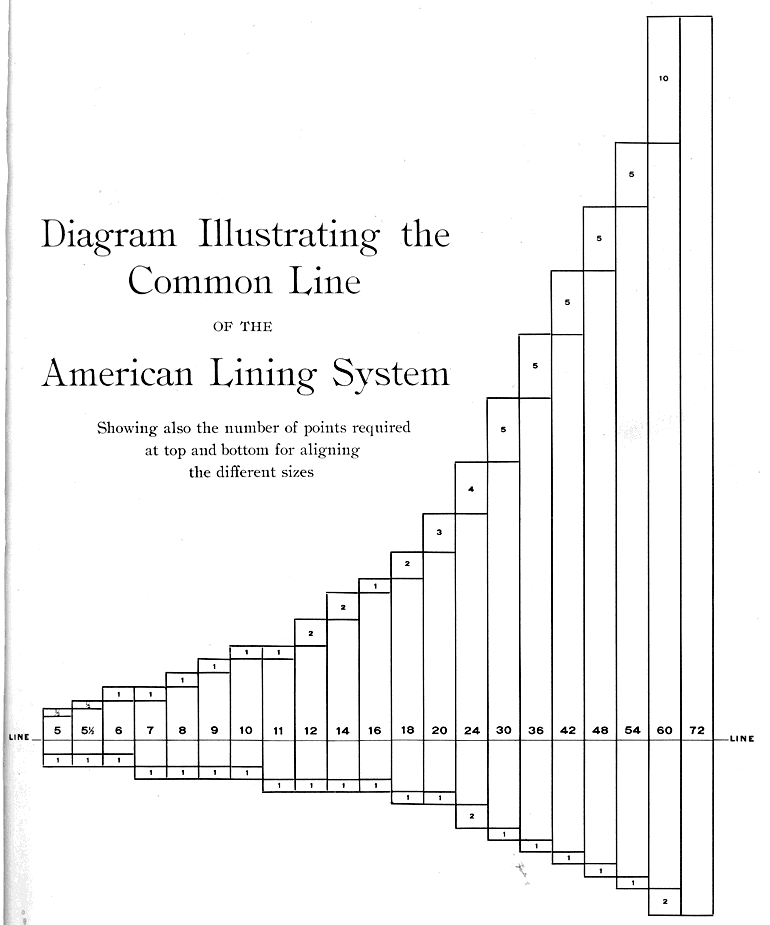
Legally, any design patents are long ago expired (ATF had a lot of these, and many can be seen in the ATF archive at Columbia).
In the USA, I understand there is no copyright on abstract typeface designs per se. But even if there were, the copyrights on much of the ATF stuff would have expired years ago. All works created prior to 1923 are in the public domain. Additionally, for works published between 1923 and 1963, the copyright owner would have to have filed an extension with the copyright office, else they would have expired by now. (Most of this info is taken from: http://www.bitlaw.com/copyright/duration.html ; note that I am not a lawyer and this should not be taken as legal advice.)
So, what other rights are there? Well, there are the typeface names, which may be trademarked. I gather trademarks can last indefinitely if maintained. It's my recollection that some non-typographic people in California ended up owning the Kingsley/ATF trademarks after ATF died off. Sorry I don't have more info.
I'm interested in this topic, as I've been tracing some of the classic ATF designs, as well as trying to reverse engineer, if you will, the way ATF did optical scaling in the metal days. I'll be posting some samples soon, but there's a bit of info in my blog.
> trying to reverse engineer, if you will, the way ATF did optical scaling in the metal days.
Huh, that's something I've been working on too! And I'm a CompSci guy as well...
Based on actual character set waterfalls of ATF Garamond (which I printed at the ArcheType press last year), I've taken measurements of 11 parameters across sizes from 6 point to 48 point, and one day :-/ I'll write a paper explaining the findings from my dissection.
BTW, I think ATF is the best target to "reverse engineer". ATF Garamond in particular makes for superb study since it's a design that pushes the limits of optical scaling versus "design integrity". One thing you should note though: width and weight changes are only two of the many things that need to be accounted for, and the Benton boys (engineers as well, tellingly) certainly knew that.
As for figuring out any "algorithm" that was used to automate the scaling, that's a very worthwhile goal. The Cost article I didn't find very enlightening though. So I've collected the names of half a dozen "old-timers" who might know more, and eventually I have to track them down and see if they'll spill the beans.
I absolutely agree that ATF is the best historical model for scaling - I seriously doubt that any numerically inclined font designer has put more thought into the question before or since. However, while the scaling in ATF Garamond is quite pretty, I've pretty much settled on the Bodoni family, for a few reasons:
1. The Bodonis are present in the 1912, 1923, 1934, and 1941 books. Of these, the 1912 arguably has the highest reproduction quality. ATF didn't introduce their Garamond until after the 1912 book came out.
2. From what I can tell, the Bodonis use a single pattern plate for all sizes from 6pt to 72pt, while Garamond has two patterns: one for 6pt through 14pt, another for 18pt through 72pt (although, in the original 1923 book, 14pt is made from the display patterns). Thus, we see the machine scaling get much more of a workout with Bodoni than the fonts with multiple masters.
3. The shapes of Bodoni are easier to analyze because they're more geometric.
Actually, if I'm going to analyze the scaling of Garamond, I'll look at the originals, as we know that Garamond wasn't working around the inherent mathematical (as opposed to optical) scaling nature of the pantographic engraving process. I have a nice reproduction of Berner's 1592 specimen sheet, and there's a good range of scales of authentic Garamond types from Canon (roughly 45pts) to Garamond (roughly 9pts).
I absolutely agree that width and weight aren't everything, but for some of the ATF fonts (I've looked most carefully at the Bodonis, Century Oldstyle, and the News/Franklin Gothic family) those two parameters are the lion's share of the adjustments. Many fonts also have shrinking descenders in small sizes, but I don't really consider that part of optical scaling per se. Other than that, the main thing I see is that serifs get a mite shorter in the small sizes, after everything else is normalized away. A few letters have additional adjustments. For example, in the Bodoni Book lowercase 'k', the "less than sign" moves farther away from the vertical stem in smaller sizes, so as to preserve the visual distinction.
But, from what I've seen so far of the Benton's work, fully automatable techniques should capture 90% or so of the effect of optical scaling. Of course, people will always want to hand-tweak beyond that, but in my opinion even a mediocre interpretation of optical scaling is better than the current status quo.
back to this question... so wassup with Kingsley? Does anyone know anything about them?
For the record, Mark Batty told me some years ago that ITC was still paying 'a little old man' royalties on several ATF trademarks.